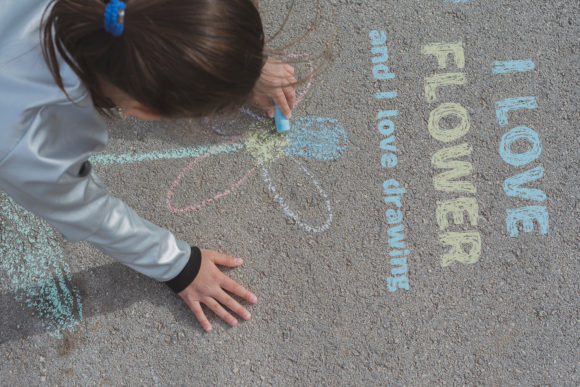
Introducing Chalk Hand Drawn Font: The Perfect Choice for School-Themed Projects
Are you looking for a font that can add a touch of creativity and playfulness to your designs? Look no further than the Chalk Hand Drawn font. This great sketch display font is suitable for chalk writing and is perfect for school-themed projects. In this article, we’ll take a closer look at the Chalk Hand Drawn font, its features, and how you can use it to create stunning designs.
What is Chalk Hand Drawn Font?
Chalk Hand Drawn font is a type of display font that mimics the look of hand-drawn chalk writing. It’s a unique and creative font that can add a personal touch to your designs. The font features irregular lines, uneven spacing, and a distinctive chalk-like texture that gives it a authentic look and feel.
Features of Chalk Hand Drawn Font
The Chalk Hand Drawn font has several features that make it an excellent choice for school-themed projects. Some of its key features include:
- Hand-drawn look: The font has a unique, hand-drawn look that gives it a personal and creative feel.
- Chalk-like texture: The font features a distinctive chalk-like texture that adds to its authenticity.
- Irregular lines: The font’s irregular lines and uneven spacing give it a playful and whimsical feel.
- Easy to read: Despite its hand-drawn look, the font is easy to read and can be used for both headings and body text.
Uses of Chalk Hand Drawn Font
The Chalk Hand Drawn font is perfect for a variety of design projects, including:
- School-themed projects: The font is ideal for school-themed projects, such as posters, flyers, and brochures.
- Chalkboard designs: The font’s chalk-like texture and hand-drawn look make it perfect for chalkboard designs.
- Playful designs: The font’s playful and whimsical feel make it suitable for designs that require a creative and playful touch.
- Educational materials: The font can be used to create educational materials, such as worksheets, quizzes, and activity sheets.
Benefits of Using Chalk Hand Drawn Font
Using the Chalk Hand Drawn font can have several benefits, including:
- Unique look: The font’s unique look and feel can help your designs stand out from the crowd.
- Creative freedom: The font’s hand-drawn look and playful feel can give you the creative freedom to experiment with different designs.
- Easily readable: The font is easy to read, making it suitable for both headings and body text.
- Versatile: The font can be used for a variety of design projects, from school-themed projects to playful designs.
Tips for Using Chalk Hand Drawn Font
Here are some tips for using the Chalk Hand Drawn font:
- Use it for headings: The font is perfect for headings and titles, where its unique look and feel can be showcased.
- Experiment with colors: The font’s chalk-like texture and hand-drawn look make it suitable for a variety of colors and color combinations.
- Pair it with other fonts: The font can be paired with other fonts to create a unique and visually appealing design.
- Use it for creative projects: The font is perfect for creative projects, such as posters, flyers, and brochures.
In conclusion, the Chalk Hand Drawn font is a great sketch display font that’s perfect for school-themed projects. Its unique look and feel, chalk-like texture, and hand-drawn lines make it a versatile font that can be used for a variety of design projects. With its creative freedom, easily readable text, and unique look, the Chalk Hand Drawn font is an excellent choice for designers looking to add a touch of playfulness and creativity to their designs.
- What is Chalk Hand Drawn font?
- Chalk Hand Drawn font is a type of display font that mimics the look of hand-drawn chalk writing.